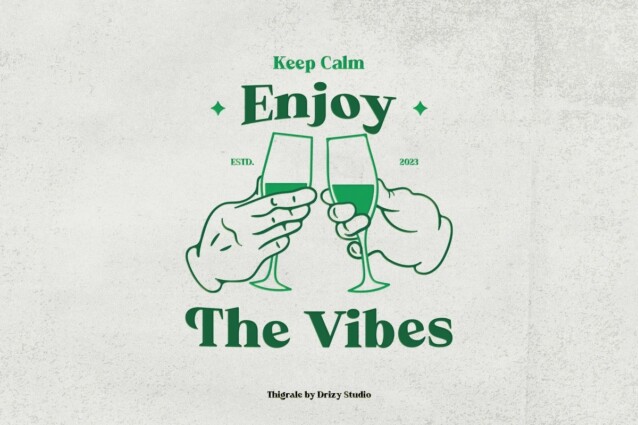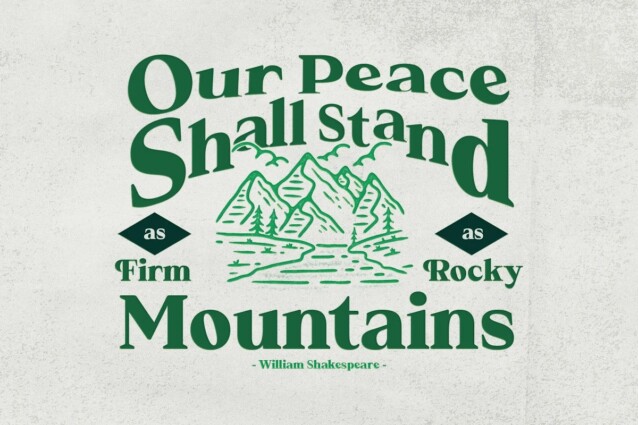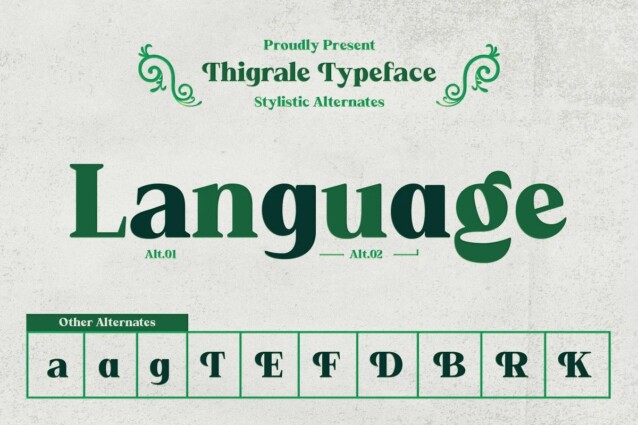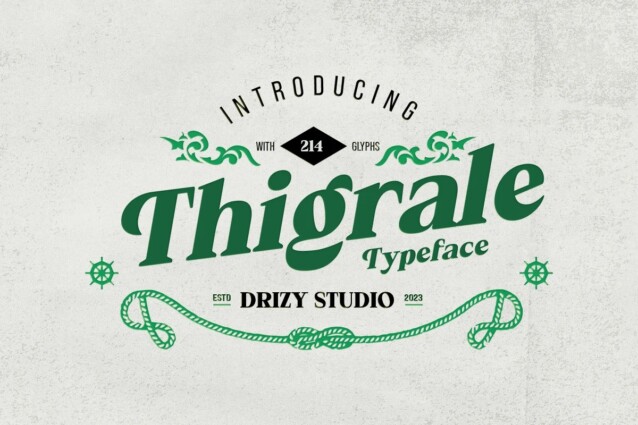
Thigrale Font
Thigrale Font is a stunning typeface that combines sleek and exotic characteristics. This typeface combines contemporary sophistication with timeless elegance, perfect for bringing a sense of luxury and refinement to their projects. It fits perfectly with invitation card designs, company logos, movie titles, movie names, business cards, book titles, brand names and various other designs.